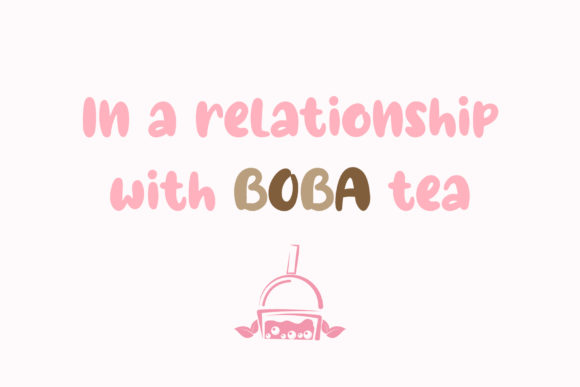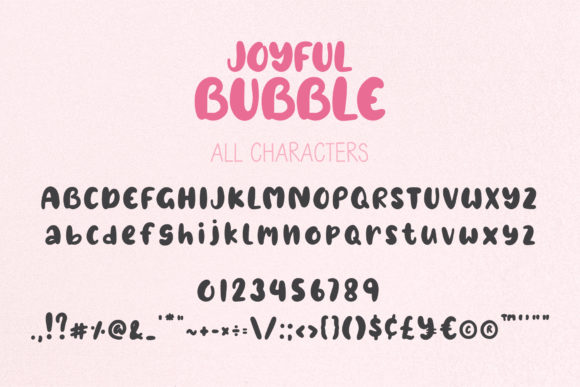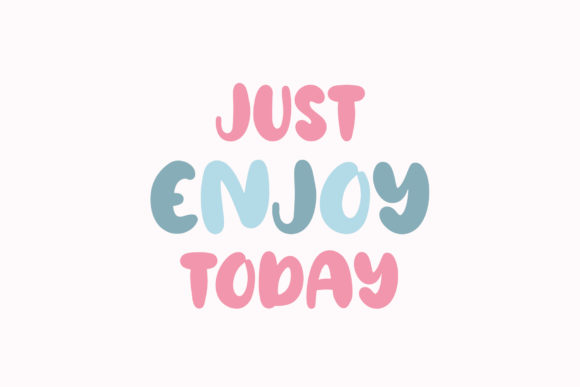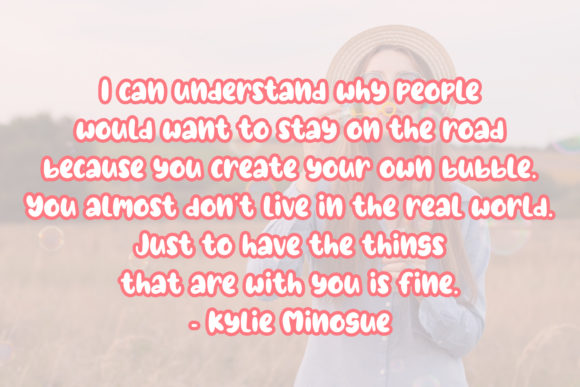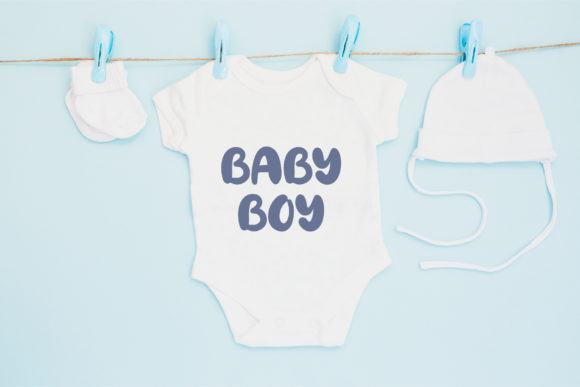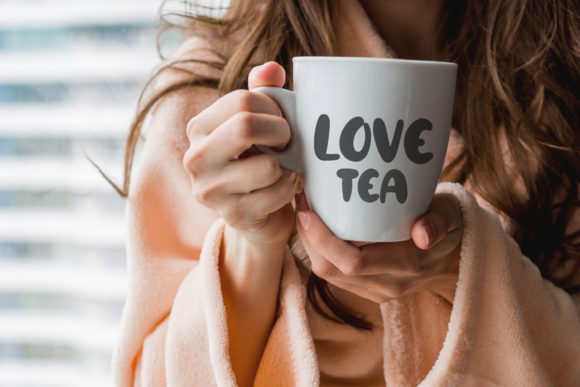
Introduction to Joyful Bubble Font
Do you ever find yourself staring at a blank canvas, desperately searching for the perfect font to bring your creative project to life? It’s that moment of frustration, when your ideas are swirling in your head, and you’re not sure how to translate them into reality. For designers and crafty DIY enthusiasts, finding the right font can make all the difference.
Enter the Joyful Bubble Font, a delightful display font that’s as bold as it is adorable. Its quirky style and playful charm make it an instant favorite among designers and creatives. Whether you’re working on a logo, poster, or branding project, this font is sure to bring a smile to your face and a touch of whimsy to your design.
Key Features of Joyful Bubble Font
- This unique font features a playful, bubble-like design with intricate details, making it perfect for adding a touch of whimsy to any creative project.
- The Joyful Bubble Font is designed to be highly versatile, suitable for a variety of design projects, including logos, graphics, and typography.
Honest Review: Joyful Bubble Font
I recently stumbled upon the Joyful Bubble Font while searching for a design resource to add a playful touch to a creative project. As a designer, I’m always on the lookout for high-quality fonts that can elevate my work, and I’m happy to report that the Joyful Bubble Font delivers.
What works well about this font is its versatility. It comes with a transparent background, making it easy to customize and combine with other design elements. The font itself is well-designed, with clean lines and a fun, bubbly aesthetic that’s perfect for projects that need a lighthearted touch.
Here are some of the key features that I appreciate about the Joyful Bubble Font:
- High-quality design that’s sure to impress
- ⚠️ Limited font sizes and styles may limit its versatility
- ⚠️ Some users may find the font too playful or childish
Overall, I’m impressed with the Joyful Bubble Font and would definitely recommend it to designers looking for a fun and creative font to add to their design arsenal.
Tips for Getting the Most Out of Joyful Bubble Font
Use the Joyful Bubble Font in creative projects, such as invitations, posters, and social media graphics. Experiment with different font sizes and colors to add visual interest to your designs. You can also use the font in combination with other design elements, such as images and shapes, to create a unique and eye-catching design.
The Joyful Bubble Font is suitable for a variety of design projects, including but not limited to: birthday invitations, party decorations, and social media graphics. Its high-quality design and transparent background make it an ideal choice for free download and use in your creative projects.
Can I use the Joyful Bubble Font for a design project with a transparent background?